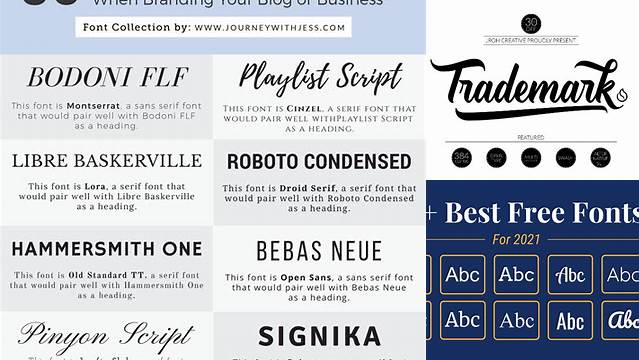
Best Fonts For Logos: Free TTF Downloads
Choosing the right font for your logo is crucial. Guys, it's like picking the perfect outfit – it needs to represent your brand's personality and make a lasting impression. Finding the best fonts for logos doesn't have to break the bank either. There are tons of amazing options available for free download in TTF format. This article will explore a range of fonts that can elevate your logo design, making it both professional and memorable. Let's dive into the world of typography and discover some fantastic choices!
1. Modern Sans-Serif Fonts for Logos
When you're aiming for a sleek and contemporary look, modern sans-serif fonts are your best friends. These fonts are characterized by their clean lines, simple shapes, and lack of serifs (those little feet at the end of the strokes). They communicate clarity, efficiency, and innovation, making them ideal for tech companies, startups, and brands that want to project a forward-thinking image. Think about big brands like Google or Spotify – they use sans-serif fonts to convey a sense of modernity and approachability. Choosing the right sans-serif font involves considering the weight, spacing, and overall style. A lighter weight font can suggest elegance and sophistication, while a bolder weight can convey strength and confidence. The spacing between letters, known as kerning, is also vital; too tight, and the letters become illegible; too loose, and the word looks disjointed. Several fantastic free TTF options are available, allowing you to experiment and find the perfect fit for your brand. Always remember to test the font across different sizes and applications to ensure it remains legible and impactful.
2. Classic Serif Fonts for Logos
If you’re after a more traditional and sophisticated feel, classic serif fonts are the way to go. Serifs are those small strokes at the ends of the letters, and they give fonts a timeless and elegant appearance. These fonts evoke a sense of history, authority, and trustworthiness, making them great for established brands, law firms, or any business aiming for a sense of tradition. Think of brands like Times New Roman or Garamond – these fonts have stood the test of time and continue to be used in prestigious publications and logos. When choosing a serif font, it's important to consider the specific style. Some serifs are more delicate and refined, while others are bolder and more pronounced. The contrast between thick and thin strokes also plays a role in the font's overall character. A font with high contrast can look very elegant, but it might not be as legible at smaller sizes. There are numerous free TTF downloads of classic serif fonts that offer a range of styles. Experimenting with different weights and sizes is crucial to see how they work with your logo design and brand identity. Keep in mind that while serif fonts convey tradition, they can also be used in modern contexts by pairing them with contemporary design elements.
3. Script Fonts for Logos: Elegant Choices
For logos that need a touch of elegance and personality, script fonts are the way to go. These fonts mimic the fluidity of handwriting, giving your logo a personal and sophisticated feel. They’re perfect for brands in the fashion, beauty, or creative industries, where a sense of artistry and individuality is crucial. Script fonts come in a variety of styles, from formal and flowing to casual and playful. A formal script font can evoke a sense of luxury and exclusivity, while a more casual script can feel friendly and approachable. When using script fonts, readability is key. Overly ornate or elaborate scripts can be difficult to read, especially at smaller sizes. It's important to choose a script font that’s both visually appealing and legible. Also, think about how the script font interacts with other elements of your logo. It might be best paired with a simple sans-serif font to create a balanced and harmonious design. Luckily, there are many free TTF script fonts available, allowing you to explore different styles and find the perfect one to represent your brand’s unique character. Always test the font in various applications, such as on your website and business cards, to ensure it looks great in all contexts.
4. Display Fonts for Logos: Unique and Eye-Catching
If you want your logo to really stand out, display fonts are your secret weapon. These fonts are designed to grab attention and make a statement. They often feature unique and unconventional letterforms, making them perfect for brands that want to project creativity and originality. Display fonts can range from bold and geometric to whimsical and quirky, so there’s bound to be one that perfectly captures your brand's personality. However, with great power comes great responsibility – display fonts need to be used judiciously. Because they are so distinctive, they can easily overpower a design if not used carefully. It’s generally best to use display fonts sparingly, often just for the logo itself, and pair them with a simpler font for body text. Legibility is also a key consideration. While display fonts are meant to be eye-catching, they still need to be readable. A font that’s too stylized or intricate can be difficult to decipher, undermining your message. There are numerous free TTF display fonts available, offering a vast range of styles and aesthetics. Experimenting with different options is essential to find the one that perfectly complements your brand. Just remember to keep balance and readability in mind.
5. Bold Fonts for Logos: Making a Statement
To make a powerful impact with your logo, bold fonts are an excellent choice. Bold fonts exude confidence, strength, and authority, making them ideal for brands that want to convey a sense of stability and reliability. They work particularly well for industries like finance, technology, and manufacturing, where trustworthiness is paramount. The impact of a bold font comes from its thick strokes and strong presence. This makes it highly visible, even from a distance, which is crucial for logo recognition. However, not all bold fonts are created equal. The specific style of the font, whether it’s sans-serif or serif, can significantly impact the overall message. A bold sans-serif font tends to look modern and assertive, while a bold serif font can convey a sense of tradition and gravitas. When selecting a bold font, consider how it will look in different applications. A font that looks great on a large sign might not be as effective on a business card. Spacing is also crucial; too little space between letters can make the word look like a solid block, while too much space can weaken the impact. There are plenty of free TTF bold fonts that offer a range of styles, allowing you to find the perfect one to make your logo stand out. Just remember to balance boldness with readability and overall design harmony.
6. Light Fonts for Logos: Elegance and Sophistication
For a touch of elegance and sophistication, light fonts are a fantastic option for your logo design. These fonts have thin strokes, giving them a delicate and refined appearance. They’re perfect for brands in industries like fashion, beauty, and luxury, where subtlety and style are key. Light fonts can create a sense of airiness and modernity, conveying a brand image that’s both chic and understated. The key to using light fonts effectively is to ensure they remain legible. Because the strokes are so thin, they can easily disappear if the font is too small or the background is too busy. It’s important to choose a light font that has good letter spacing and clear letterforms. Pairing a light font with a bolder font can create a visually appealing contrast and improve overall readability. Think about brands like Chanel or Dior – their logos often feature light fonts, conveying a sense of exclusivity and high-end quality. There are numerous free TTF light fonts available, offering a variety of styles from classic serifs to modern sans-serifs. Experimenting with different options is crucial to find the one that best represents your brand's aesthetic. Just remember to prioritize readability and ensure the font stands out in all applications.
7. Geometric Fonts for Logos: Modern and Minimalist
Geometric fonts offer a modern and minimalist aesthetic, making them an excellent choice for logos that aim to project a clean and contemporary image. These fonts are characterized by their precise shapes and clean lines, often based on geometric forms like circles, squares, and triangles. This gives them a structured and orderly appearance, conveying a sense of efficiency and innovation. Geometric fonts are particularly well-suited for tech companies, startups, and brands that want to project a forward-thinking image. The simplicity of geometric fonts makes them highly versatile. They work well in both large and small sizes, and they can be easily paired with other font styles to create a balanced design. However, the minimalist nature of these fonts also means they can sometimes feel impersonal. It’s important to choose a geometric font that has enough character to stand out and represent your brand’s unique personality. Consider brands like Adidas or Volkswagen – their logos use geometric fonts to convey a sense of strength and precision. There are many free TTF geometric fonts available, offering a range of styles from ultra-modern to slightly more traditional. Exploring different options is key to finding the one that best embodies your brand’s identity. Just remember to balance simplicity with distinctiveness.
8. Handwritten Fonts for Logos: Personal Touch
If you want to add a personal and approachable touch to your logo, handwritten fonts are a great way to go. These fonts mimic the look of handwriting, giving your logo a unique and informal feel. They’re perfect for businesses that want to convey a sense of authenticity and connection, such as bakeries, boutiques, or creative studios. Handwritten fonts come in a wide variety of styles, from elegant calligraphy to casual script, so you can find one that perfectly matches your brand's personality. However, readability is crucial when using handwritten fonts. Overly stylized or intricate fonts can be difficult to read, especially at smaller sizes. It’s important to choose a font that’s both visually appealing and legible. Think about brands like Etsy or Anthropologie – their logos use handwritten fonts to create a friendly and inviting image. When using a handwritten font, consider how it will pair with other elements of your logo. It might be best combined with a simpler font, such as a sans-serif, to ensure balance and readability. There are numerous free TTF handwritten fonts available, offering a range of styles to explore. Just remember to prioritize legibility and overall design harmony.
9. Vintage Fonts for Logos: Timeless Appeal
For a logo that exudes timeless appeal and character, vintage fonts are an excellent choice. These fonts evoke a sense of history and craftsmanship, making them ideal for brands that want to project a classic and established image. They work particularly well for businesses like coffee shops, breweries, and barber shops, where a sense of tradition is valued. Vintage fonts often feature decorative serifs, intricate details, and a slightly worn or aged appearance, adding to their charm. However, using vintage fonts effectively requires careful consideration. They can sometimes look outdated if not used in the right context. It’s important to pair them with modern design elements to create a balanced and timeless aesthetic. Think about brands like Coca-Cola or Harley-Davidson – their logos use vintage fonts to convey a sense of heritage and authenticity. When selecting a vintage font, consider the specific era or style you want to evoke. There are fonts that harken back to the Art Deco era, the Victorian period, or the mid-century modern movement. Numerous free TTF vintage fonts are available, offering a diverse range of styles to explore. Just remember to balance vintage charm with modern design principles.
10. Slab Serif Fonts for Logos: Bold and Confident
If you're aiming for a logo that's both bold and confident, slab serif fonts are a fantastic choice. These fonts are characterized by their thick, block-like serifs, which give them a strong and assertive appearance. They’re perfect for brands that want to project a sense of stability, reliability, and strength. Slab serif fonts work well for a variety of industries, including manufacturing, technology, and even food and beverage. The distinctiveness of slab serif fonts makes them highly visible and memorable. They stand out well in both large and small sizes, making them ideal for logos that need to be versatile. However, the boldness of slab serif fonts also means they need to be used carefully. They can sometimes feel heavy or overpowering if not balanced with other design elements. Think about brands like Honda or Sony – their logos use slab serif fonts to convey a sense of innovation and durability. When selecting a slab serif font, consider the specific style and weight that best represents your brand’s personality. Some slab serifs are more geometric and modern, while others have a more traditional and industrial feel. There are plenty of free TTF slab serif fonts available, offering a range of styles to choose from. Just remember to balance boldness with overall design harmony and readability.
11. Retro Fonts for Logos: Nostalgic Vibes
For logos that evoke a sense of nostalgia and fun, retro fonts are a perfect choice. These fonts draw inspiration from past decades, particularly the mid-20th century, giving your logo a vintage and playful feel. They’re ideal for businesses that want to connect with customers on an emotional level, such as diners, record stores, or clothing boutiques. Retro fonts often feature unique and eye-catching letterforms, with rounded shapes, bold lines, and a slightly quirky appearance. They can range from mid-century modern to 1970s funk, offering a wide variety of styles to choose from. However, using retro fonts effectively requires careful consideration. They can sometimes look dated if not used in the right context. It’s important to pair them with modern design elements to create a balanced and nostalgic aesthetic. Think about brands that successfully use retro fonts, like In-N-Out Burger or Pabst Blue Ribbon. Their logos evoke a sense of nostalgia and authenticity. There are numerous free TTF retro fonts available, offering a diverse range of styles to explore. Just remember to balance retro charm with modern design principles and readability.
12. Calligraphy Fonts for Logos: Artistic Flair
To add an artistic and elegant flair to your logo, calligraphy fonts are an excellent option. These fonts mimic the flowing strokes of calligraphy, giving your logo a sophisticated and handcrafted feel. They’re perfect for brands in industries like fashion, beauty, and events, where a touch of artistry is valued. Calligraphy fonts come in a variety of styles, from formal and traditional to modern and whimsical. A formal calligraphy font can evoke a sense of luxury and exclusivity, while a more casual calligraphy font can feel friendly and approachable. However, readability is crucial when using calligraphy fonts. Overly ornate or elaborate scripts can be difficult to read, especially at smaller sizes. It’s important to choose a calligraphy font that’s both visually appealing and legible. Think about brands like Yves Saint Laurent or Tiffany & Co. – their logos use calligraphy fonts to convey a sense of elegance and sophistication. When using a calligraphy font, consider how it will pair with other elements of your logo. It might be best combined with a simpler font, such as a sans-serif, to ensure balance and readability. There are numerous free TTF calligraphy fonts available, offering a range of styles to explore. Just remember to prioritize legibility and overall design harmony.
13. Distressed Fonts for Logos: Rustic and Edgy
For logos that need a rustic and edgy vibe, distressed fonts are a great choice. These fonts have a worn or weathered appearance, giving your logo a sense of authenticity and grit. They’re ideal for businesses that want to project a raw and rugged image, such as breweries, outdoor gear companies, or vintage shops. Distressed fonts often feature textures, imperfections, and irregular letterforms, adding to their unique character. The distressed look can be achieved through various techniques, such as adding scratches, fading, or uneven edges. However, it’s important to use distressed fonts judiciously. Overly distressed fonts can be difficult to read and might appear unprofessional. It’s essential to strike a balance between the distressed aesthetic and overall legibility. Think about brands like Levi’s or Jack Daniel’s – their logos use distressed fonts to convey a sense of heritage and authenticity. When selecting a distressed font, consider the specific style and level of distress that best represents your brand. Some distressed fonts have a subtle texture, while others have a more pronounced weathered appearance. Numerous free TTF distressed fonts are available, offering a diverse range of styles to explore. Just remember to balance the rustic aesthetic with readability and overall design harmony.
14. Rounded Fonts for Logos: Friendly and Approachable
If you want your logo to convey a sense of friendliness and approachability, rounded fonts are an excellent option. These fonts have soft, rounded edges, giving them a warm and inviting appearance. They’re perfect for brands that want to create a welcoming and approachable image, such as childcare centers, bakeries, or community organizations. Rounded fonts tend to be more casual and playful than fonts with sharp corners, making them ideal for businesses that want to connect with customers on a personal level. They can also evoke a sense of youthfulness and optimism. However, it’s important to use rounded fonts appropriately. They might not be the best choice for businesses that want to project a serious or authoritative image. Think about brands like Disney or Pillsbury – their logos use rounded fonts to create a friendly and approachable image. When selecting a rounded font, consider the specific style and weight that best represents your brand. Some rounded fonts are more geometric and modern, while others have a more organic and hand-drawn feel. There are plenty of free TTF rounded fonts available, offering a range of styles to choose from. Just remember to balance the friendly aesthetic with overall design harmony and readability.
15. Condensed Fonts for Logos: Maximizing Space
When space is at a premium, condensed fonts are a lifesaver for logo design. These fonts have narrow letterforms, allowing you to fit more characters into a limited area. They’re ideal for logos that need to be displayed in tight spaces, such as on business cards, mobile apps, or website headers. Condensed fonts can also add a sense of verticality and sophistication to your logo. They work well for a variety of industries, including technology, finance, and fashion. However, readability is crucial when using condensed fonts. Overly condensed fonts can be difficult to read, especially at smaller sizes. It’s important to choose a font that’s both visually appealing and legible. Think about brands like The New York Times or Bloomberg – their logos use condensed fonts to maximize space and convey a sense of authority. When selecting a condensed font, consider the specific style and weight that best represents your brand. Some condensed fonts are more geometric and modern, while others have a more traditional and elegant feel. There are numerous free TTF condensed fonts available, offering a range of styles to explore. Just remember to prioritize legibility and overall design harmony.
16. Creative Fonts for Logos: Unleashing Imagination
If you want your logo to truly stand out and showcase your brand's creativity, creative fonts are the way to go. These fonts push the boundaries of traditional typography, featuring unique and unconventional letterforms. They’re perfect for businesses in creative industries like design, art, and music, where originality is highly valued. Creative fonts can range from whimsical and playful to bold and experimental, offering endless possibilities for expressing your brand’s personality. However, using creative fonts effectively requires careful consideration. They can sometimes be difficult to read if not used judiciously. It’s important to choose a font that’s both visually striking and legible. Think about brands that successfully use creative fonts, like MTV or Red Bull. Their logos are instantly recognizable and convey a sense of innovation. When selecting a creative font, consider how it will pair with other elements of your logo. It might be best combined with a simpler font, such as a sans-serif, to ensure balance and readability. Numerous free TTF creative fonts are available, offering a diverse range of styles to explore. Just remember to prioritize legibility and overall design harmony.
17. Futuristic Fonts for Logos: Cutting-Edge Design
For logos that aim to project a cutting-edge and innovative image, futuristic fonts are an excellent choice. These fonts are inspired by science fiction and technology, featuring sleek lines, geometric shapes, and a forward-thinking aesthetic. They’re perfect for businesses in industries like technology, aerospace, and gaming, where a sense of innovation is crucial. Futuristic fonts often have a minimalist and streamlined appearance, conveying efficiency and modernity. They can range from subtle and understated to bold and dramatic, offering a variety of styles to choose from. However, using futuristic fonts effectively requires careful consideration. They can sometimes look cold or impersonal if not used in the right context. It’s important to balance the futuristic aesthetic with overall brand warmth and approachability. Think about brands like Tesla or Samsung – their logos use futuristic fonts to convey a sense of innovation and technological advancement. When selecting a futuristic font, consider the specific style and weight that best represents your brand. Some futuristic fonts are more geometric and minimalist, while others have a more stylized and decorative feel. There are plenty of free TTF futuristic fonts available, offering a range of styles to choose from. Just remember to balance the cutting-edge aesthetic with overall design harmony and readability.
18. Gothic Fonts for Logos: Dark and Mysterious
If you want your logo to exude a dark and mysterious vibe, gothic fonts are a compelling choice. These fonts, also known as blackletter or Old English fonts, feature intricate letterforms, sharp angles, and a medieval aesthetic. They're ideal for businesses that want to convey a sense of history, tradition, or edgy sophistication, such as tattoo parlors, breweries, or bands. Gothic fonts have a strong and dramatic presence, making them stand out and capture attention. However, using gothic fonts effectively requires careful consideration. They can be difficult to read if not used judiciously, especially in smaller sizes. It’s crucial to choose a gothic font that balances visual appeal with legibility. Think about brands like Guinness or the New York Times – their logos use gothic fonts to evoke a sense of tradition and authority. When selecting a gothic font, consider the specific style and weight that best represents your brand. Some gothic fonts are more ornate and decorative, while others are more simplified and modern. Numerous free TTF gothic fonts are available, offering a diverse range of styles to explore. Just remember to prioritize legibility and ensure the gothic style aligns with your brand identity.
19. Brush Fonts for Logos: Hand-Painted Feel
For logos that need a personal and artistic touch, brush fonts are an excellent option. These fonts mimic the look of brushstrokes, giving your logo a handcrafted and expressive feel. They’re perfect for businesses in creative industries like art, design, and fashion, where a sense of individuality is valued. Brush fonts come in a variety of styles, from bold and textured to elegant and flowing, so you can find one that perfectly matches your brand’s personality. They can evoke a sense of energy, passion, and creativity. However, readability is crucial when using brush fonts. Overly stylized or textured fonts can be difficult to read, especially at smaller sizes. It’s important to choose a font that’s both visually appealing and legible. Think about brands that successfully use brush fonts, such as Vans or certain craft breweries. Their logos convey a sense of authenticity and artistic flair. When using a brush font, consider how it will pair with other elements of your logo. It might be best combined with a simpler font, such as a sans-serif, to ensure balance and readability. There are numerous free TTF brush fonts available, offering a range of styles to explore. Just remember to prioritize legibility and overall design harmony.
20. Pixel Fonts for Logos: Retro Gaming Vibe
If you want to infuse your logo with a retro gaming vibe, pixel fonts are a fantastic choice. These fonts are inspired by the pixelated graphics of classic video games, giving your logo a nostalgic and playful feel. They’re ideal for businesses in the gaming industry, tech startups, or any brand that wants to project a fun and quirky image. Pixel fonts are characterized by their blocky, pixelated letterforms, which evoke a sense of 8-bit nostalgia. They can range from simple and geometric to more complex and stylized, offering a variety of options to choose from. However, readability is key when using pixel fonts. They can be difficult to read if the pixel size is too small or the letterforms are too intricate. It’s important to choose a pixel font that’s both visually appealing and legible. Think about brands that successfully use pixel fonts, such as certain indie game developers or tech companies with a retro aesthetic. Their logos convey a sense of playfulness and nostalgia. When selecting a pixel font, consider how it will pair with other elements of your logo. It might be best combined with a simpler font or graphic to ensure balance and readability. There are plenty of free TTF pixel fonts available, offering a range of styles to explore. Just remember to prioritize legibility and overall design harmony.
21. Outline Fonts for Logos: Modern and Minimalist Design
For logos that seek a modern and minimalist design, outline fonts are an excellent choice. These fonts feature only the outlines of the letterforms, creating a clean and contemporary look. They’re perfect for brands that want to project a sense of simplicity, elegance, and sophistication. Outline fonts work well in a variety of industries, including technology, fashion, and design. The minimalist nature of outline fonts makes them highly versatile. They can be used effectively in both large and small sizes, and they pair well with other font styles to create a balanced and visually appealing design. However, the key to using outline fonts effectively is to ensure they remain legible. Because the letterforms are only outlined, they can sometimes disappear against certain backgrounds. It’s important to choose an outline font with sufficient stroke thickness and contrast. Think about brands like Adidas or Chanel – their logos often use outline fonts to convey a sense of elegance and modernity. When selecting an outline font, consider the specific style and weight that best represents your brand’s personality. Some outline fonts are more geometric and minimalist, while others have a more stylized and decorative feel. There are numerous free TTF outline fonts available, offering a range of styles to explore. Just remember to prioritize legibility and overall design harmony.
22. Shadow Fonts for Logos: Adding Depth and Dimension
To add depth and dimension to your logo, consider using shadow fonts. These fonts incorporate a shadow effect, creating a 3D appearance that makes your logo stand out. They’re perfect for brands that want to make a strong visual impact and add a touch of drama to their logo design. Shadow fonts can work well in a variety of industries, including entertainment, sports, and technology. The shadow effect can be achieved through various techniques, such as drop shadows, long shadows, or layered shadows. The choice of technique can significantly impact the overall look and feel of your logo. However, it’s crucial to use shadow fonts judiciously. Overly complex or pronounced shadows can make the font difficult to read and might appear cluttered. It’s important to strike a balance between the visual impact of the shadow and the legibility of the font. Think about brands that successfully use shadow fonts, such as movie titles or sports teams. Their logos often use shadows to create a sense of depth and excitement. When selecting a shadow font, consider the specific style and direction of the shadow that best complements your brand’s aesthetic. There are many free TTF shadow fonts available, offering a range of styles to choose from. Just remember to prioritize legibility and ensure the shadow effect enhances rather than detracts from your logo’s overall design.
23. 3D Fonts for Logos: Creating a Visual Impact
If you really want your logo to pop, 3D fonts are the way to go. These fonts give the illusion of depth and dimension, making your logo visually striking and memorable. They’re perfect for brands that want to make a bold statement and grab attention. 3D fonts work particularly well in industries like entertainment, technology, and gaming, where a sense of innovation and excitement is valued. The 3D effect can be achieved through various techniques, such as extruding the letterforms, adding shading, or creating perspective. The choice of technique can significantly impact the overall look and feel of your logo. However, using 3D fonts effectively requires careful consideration. Overly complex or exaggerated 3D effects can make the font difficult to read and might appear overwhelming. It’s crucial to strike a balance between the visual impact of the 3D effect and the legibility of the font. Think about brands that successfully use 3D fonts, such as movie titles or game logos. Their logos often use 3D effects to create a sense of depth and immersion. When selecting a 3D font, consider the specific style and direction of the 3D effect that best complements your brand’s aesthetic. There are numerous free TTF 3D fonts available, offering a range of styles to explore. Just remember to prioritize legibility and ensure the 3D effect enhances rather than detracts from your logo’s overall design.
24. Industrial Fonts for Logos: Rugged and Strong
For logos that need to project a sense of ruggedness and strength, industrial fonts are an excellent choice. These fonts are inspired by industrial machinery, construction, and manufacturing, featuring bold letterforms, geometric shapes, and a no-nonsense aesthetic. They’re perfect for businesses in industries like construction, automotive, and engineering, where a sense of reliability and durability is valued. Industrial fonts often have a strong and assertive presence, conveying confidence and stability. They can range from simple and functional to more stylized and decorative, offering a variety of options to choose from. However, readability is key when using industrial fonts. They can sometimes appear harsh or intimidating if not used judiciously. It’s important to choose a font that’s both visually appealing and legible. Think about brands that successfully use industrial fonts, such as Caterpillar or Ford. Their logos convey a sense of strength and durability. When selecting an industrial font, consider the specific style and weight that best represents your brand. Some industrial fonts are more geometric and minimalist, while others have a more textured and weathered feel. There are plenty of free TTF industrial fonts available, offering a range of styles to explore. Just remember to prioritize legibility and overall design harmony.
25. Neon Fonts for Logos: Vibrant and Energetic
To inject a vibrant and energetic feel into your logo, neon fonts are a fantastic choice. These fonts mimic the look of neon signs, featuring bright colors, glowing effects, and a retro aesthetic. They’re perfect for businesses in industries like nightlife, entertainment, and fashion, where a sense of excitement and energy is valued. Neon fonts often have a bold and eye-catching appearance, making them stand out and grab attention. They can range from classic neon scripts to modern geometric designs, offering a variety of styles to choose from. However, readability is crucial when using neon fonts. They can be difficult to read if the colors are too bright or the letterforms are too intricate. It’s important to choose a font that’s both visually appealing and legible. Think about brands that successfully use neon fonts, such as certain bars, clubs, or fashion labels. Their logos convey a sense of vibrancy and excitement. When selecting a neon font, consider the specific colors and effects that best represent your brand. Some neon fonts have a more subtle glow, while others have a more intense and vibrant appearance. Numerous free TTF neon fonts are available, offering a range of styles to explore. Just remember to prioritize legibility and overall design harmony.
26. Tech Fonts for Logos: Sleek and Modern
If you're looking for a font that screams sleek and modern, tech fonts are your go-to. These fonts are designed to reflect the cutting-edge nature of the technology industry, with clean lines, geometric shapes, and a minimalist aesthetic. They're perfect for startups, software companies, and any brand that wants to project a forward-thinking image. Tech fonts often have a streamlined and efficient appearance, conveying a sense of innovation and precision. They can range from subtle and understated to bold and futuristic, offering a variety of styles to choose from. However, readability is key when using tech fonts. They can sometimes appear cold or impersonal if not used judiciously. It’s important to choose a font that’s both visually appealing and legible. Think about brands that successfully use tech fonts, such as Intel or IBM. Their logos convey a sense of technological prowess and reliability. When selecting a tech font, consider the specific style and weight that best represents your brand. Some tech fonts are more geometric and minimalist, while others have a more stylized and futuristic feel. There are plenty of free TTF tech fonts available, offering a range of styles to explore. Just remember to prioritize legibility and overall design harmony.
27. Sports Fonts for Logos: Dynamic and Energetic
To capture the dynamic and energetic spirit of sports, sports fonts are an excellent choice for your logo. These fonts are designed to convey a sense of athleticism, speed, and competition. They're perfect for sports teams, athletic apparel brands, and any business that wants to project a sense of strength and vitality. Sports fonts often have bold, angular letterforms, creating a sense of movement and excitement. They can range from classic collegiate styles to modern, aggressive designs, offering a variety of options to choose from. However, readability is crucial when using sports fonts. They can sometimes appear cluttered or overwhelming if not used judiciously. It’s important to choose a font that’s both visually appealing and legible. Think about brands that successfully use sports fonts, such as Nike or Adidas. Their logos convey a sense of athleticism and performance. When selecting a sports font, consider the specific style and weight that best represents your brand. Some sports fonts are more classic and traditional, while others have a more modern and edgy feel. There are numerous free TTF sports fonts available, offering a range of styles to explore. Just remember to prioritize legibility and overall design harmony.
28. Elegant Fonts for Logos: Sophisticated and Refined
For logos that aim to exude sophistication and refinement, elegant fonts are a classic and timeless choice. These fonts feature delicate letterforms, graceful curves, and a refined aesthetic. They're perfect for brands in industries like fashion, beauty, and luxury, where a sense of elegance and exclusivity is valued. Elegant fonts often have a light and airy appearance, conveying a sense of grace and sophistication. They can range from classic serif styles to modern sans-serif designs, offering a variety of options to choose from. However, readability is crucial when using elegant fonts. They can sometimes appear too delicate or understated if not used judiciously. It’s important to choose a font that’s both visually appealing and legible. Think about brands that successfully use elegant fonts, such as Chanel or Dior. Their logos convey a sense of timeless elegance and sophistication. When selecting an elegant font, consider the specific style and weight that best represents your brand. Some elegant fonts are more traditional and formal, while others have a more modern and minimalist feel. There are plenty of free TTF elegant fonts available, offering a range of styles to explore. Just remember to prioritize legibility and overall design harmony.
29. Minimalist Fonts for Logos: Clean and Simple
If you're aiming for a clean and simple logo, minimalist fonts are your best bet. These fonts emphasize simplicity and clarity, featuring basic letterforms, clean lines, and a clutter-free aesthetic. They’re perfect for brands that want to project a sense of modernity, efficiency, and sophistication. Minimalist fonts work well in a variety of industries, including technology, design, and finance. The beauty of minimalist fonts lies in their versatility. They can be used effectively in both large and small sizes, and they pair well with other design elements to create a balanced and harmonious logo. However, it’s important to choose a minimalist font that still has enough personality to represent your brand. While simplicity is key, you don’t want your logo to look generic or forgettable. Think about brands that successfully use minimalist fonts, such as Apple or Google. Their logos are instantly recognizable and convey a sense of innovation and simplicity. When selecting a minimalist font, consider the specific style and weight that best represents your brand. Some minimalist fonts are more geometric and modern, while others have a slightly softer and more organic feel. There are numerous free TTF minimalist fonts available, offering a range of styles to explore. Just remember to prioritize legibility and ensure the font aligns with your brand’s overall identity.
30. Cartoon Fonts for Logos: Fun and Playful
For logos that need a fun and playful touch, cartoon fonts are an excellent choice. These fonts are designed to evoke a sense of whimsy, joy, and lightheartedness. They’re perfect for businesses that cater to children, entertainment companies, or any brand that wants to project a friendly and approachable image. Cartoon fonts often feature rounded letterforms, quirky details, and a cheerful aesthetic. They can range from simple and childlike to more elaborate and expressive, offering a variety of options to choose from. However, readability is crucial when using cartoon fonts. They can sometimes be difficult to read if the letterforms are too stylized or the colors are too vibrant. It’s important to choose a font that’s both visually appealing and legible. Think about brands that successfully use cartoon fonts, such as Disney or Nickelodeon. Their logos convey a sense of fun and playfulness. When selecting a cartoon font, consider the specific style and personality that best represents your brand. Some cartoon fonts are more whimsical and fanciful, while others have a more modern and stylized feel. There are plenty of free TTF cartoon fonts available, offering a range of styles to explore. Just remember to prioritize legibility and overall design harmony. Make sure the font aligns with your brand's overall message and target audience.